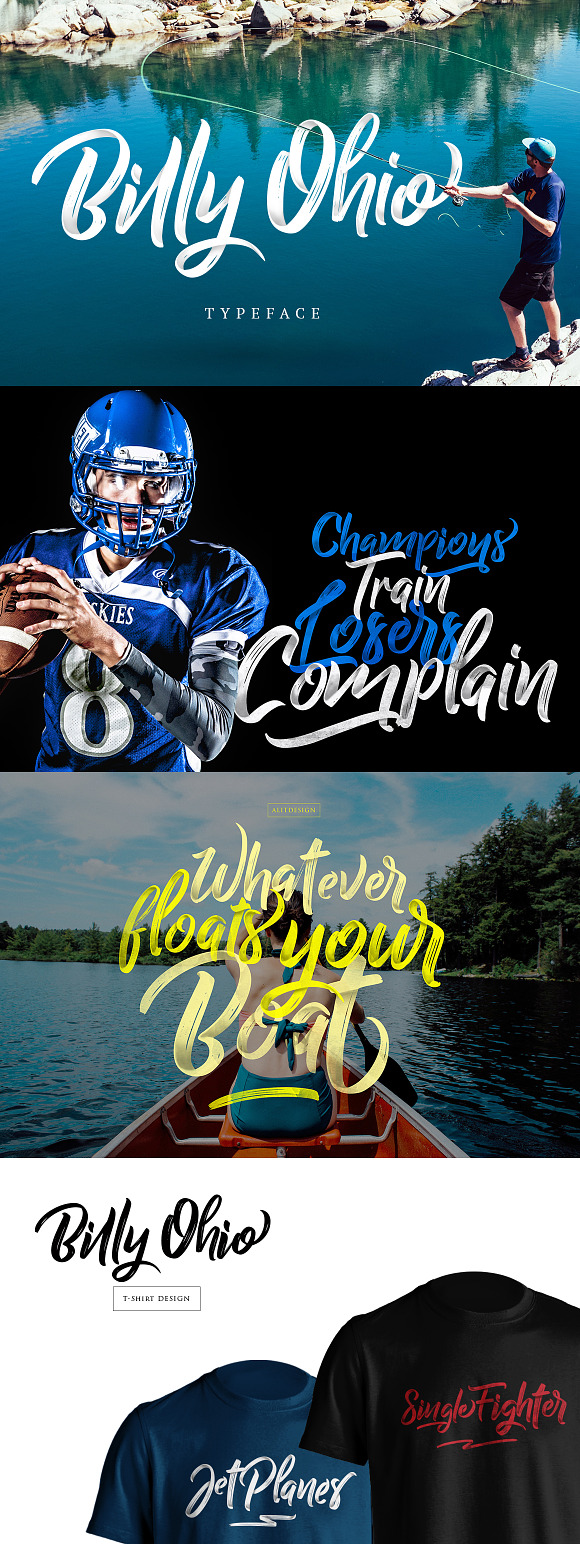
Billy Ohio Typeface
This Americana typeface is perfect for vintage branding, rustic signage, country music venues, craft breweries, barbecue restaurants, outdoor adventure brands, small-town businesses, heritage products, and authentic American design projects.
What makes this font exciting is its heartland character combined with genuine American authenticity, offering designers a down-to-earth typeface that captures the spirit of small-town America while delivering honest craftsmanship and wholesome Midwestern appeal.
The Billy Ohio font family includes regular, bold, weathered, stencil, and vintage variations, providing complete Americana design solutions for creating authentic heartland visual identities.
Whether you're developing small-town business brands or crafting nostalgic American experiences, Billy Ohio Typeface Free Download brings exceptional heartland atmosphere and authentic American character to every application. This genuine typeface combines traditional American typography with contemporary craftsmanship design, creating letterforms that feel honest and trustworthy. The font's heartland construction and authenticity-ready details make it perfect for brands seeking immediate American recognition.
Billy Ohio Typeface features carefully crafted Americana styling with authentic heartland character that conveys genuine American values. Each character has been designed to reflect the hardworking spirit of American craftsmanship, with sturdy proportions and honest elements that enhance the wholesome aesthetic. The font's American qualities make it particularly effective for craft businesses and heritage applications.
Professional designers choose Billy Ohio Typeface for projects requiring authentic American credibility and heartland atmosphere. Its Americana heritage makes it exceptionally well-suited for craft breweries, local restaurants, and heritage lifestyle brands. The font's versatile American variations allow designers to control the heartland intensity, from subtle vintage elegance to full Americana celebration.
The complete Billy Ohio Typeface package offers extensive Americana ornaments and heartland decorative elements that enhance the authentic aesthetic. Advanced vintage features allow designers to create complex American effects with multiple heritage-inspired options. This comprehensive heartland toolkit ensures designers have everything needed to create authentic American communications that celebrate the enduring values of honest craftsmanship and small-town American spirit.